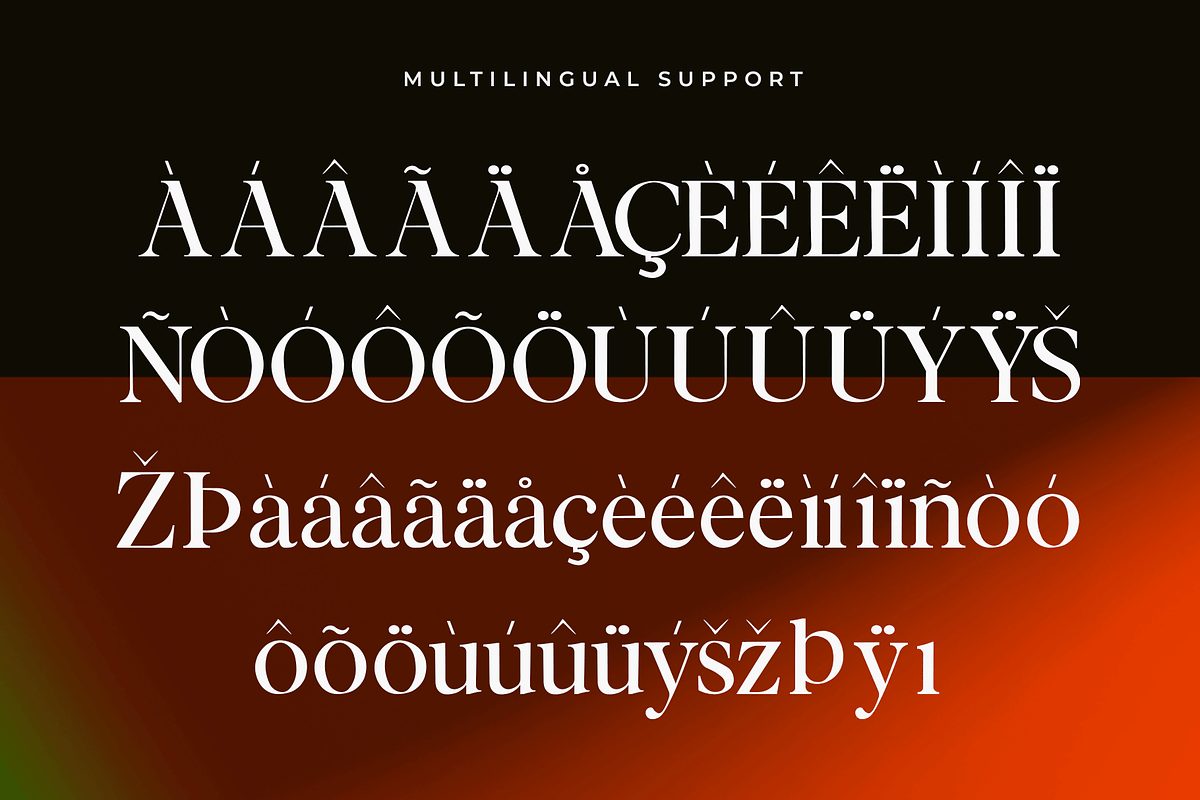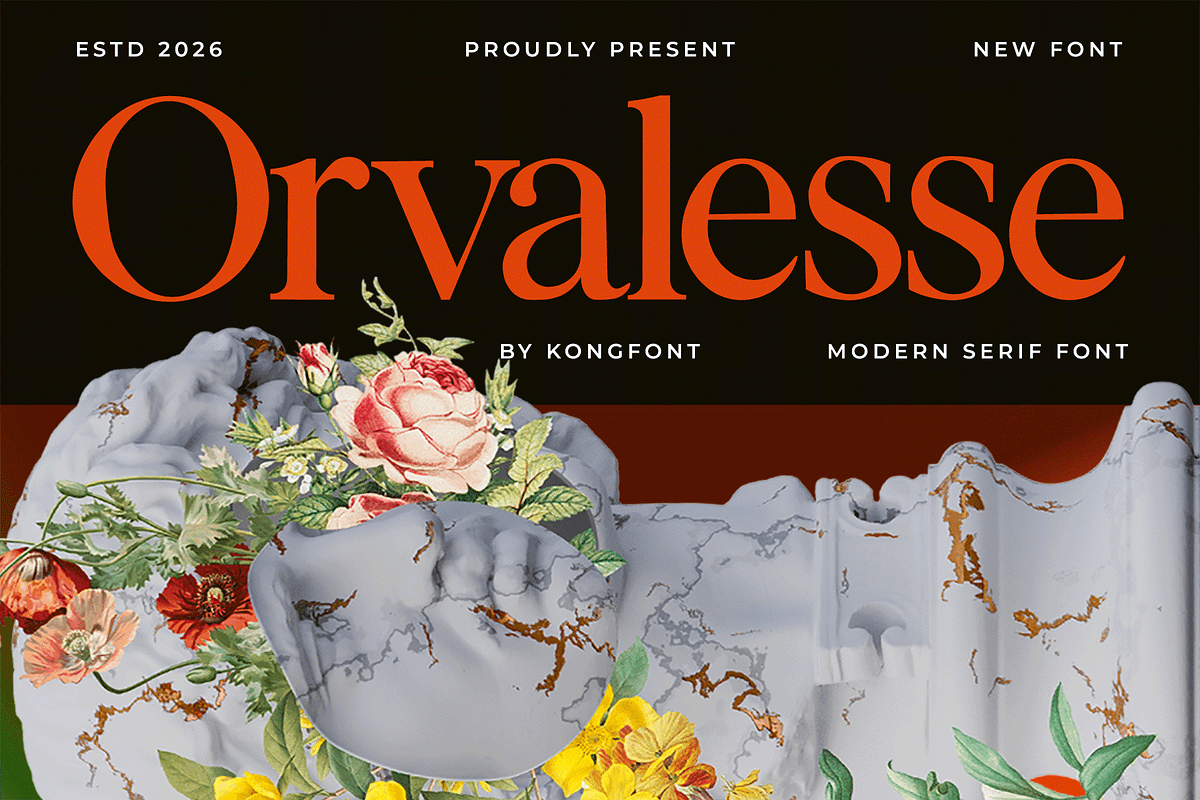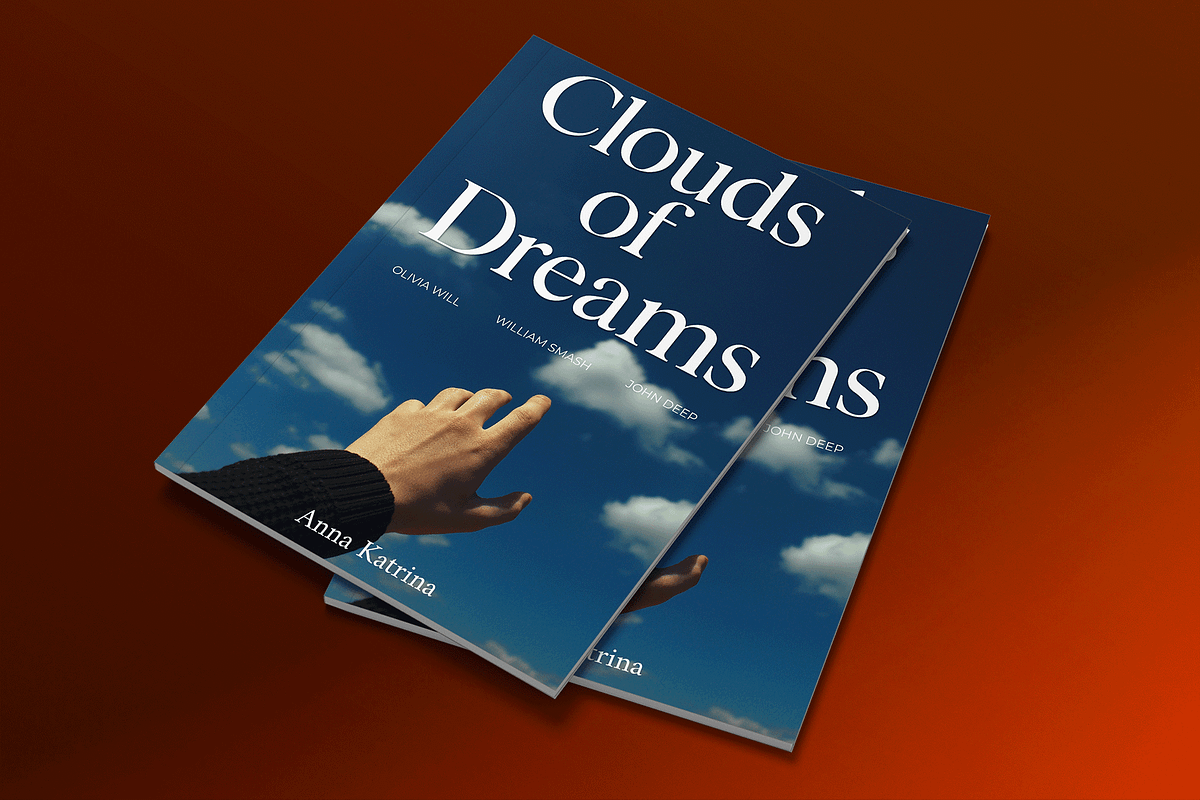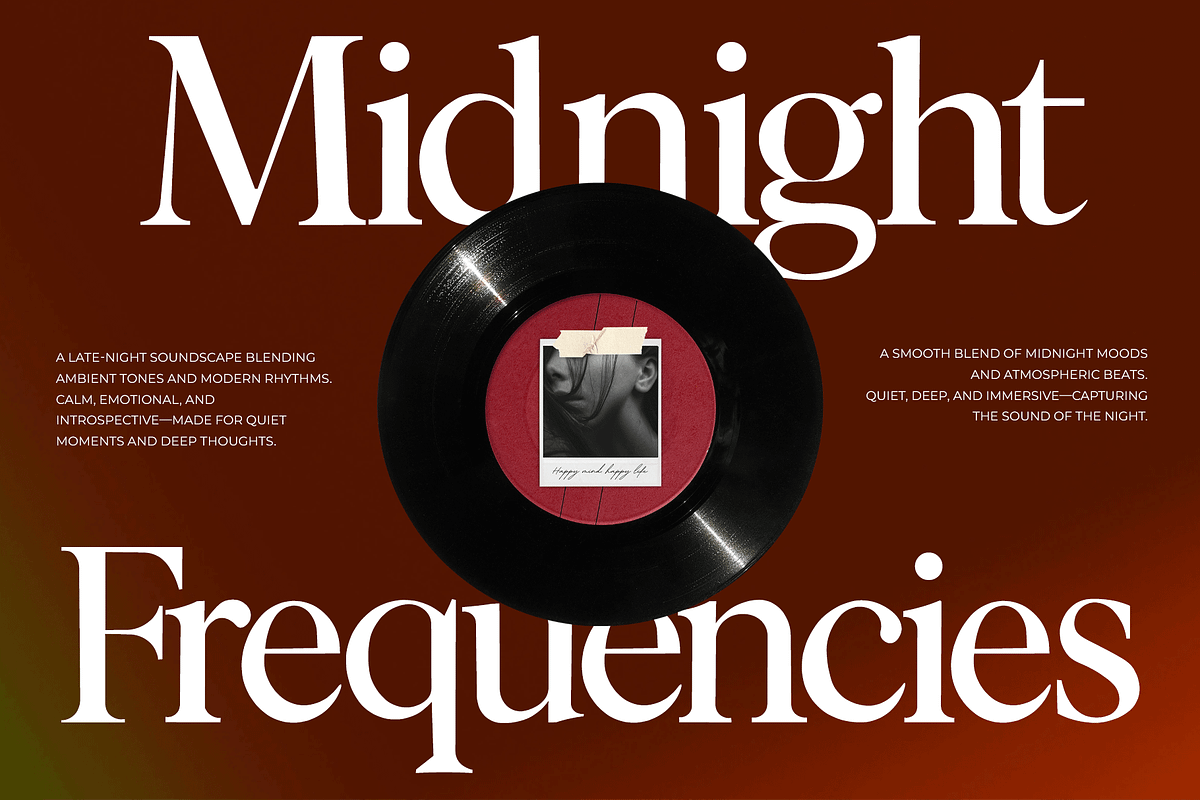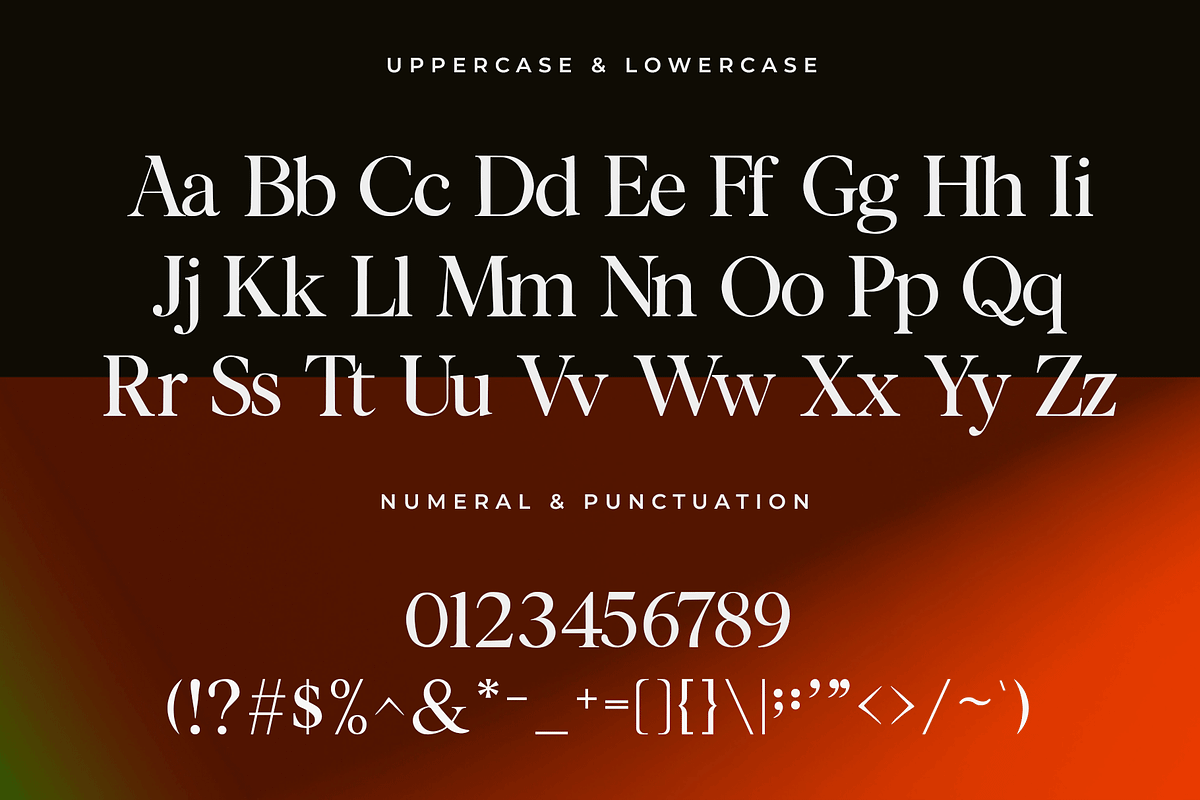
Orvaless – Modern Serif Font
Orvaless is a modern serif font designed to bring sophistication, clarity, and timeless beauty into your creative work. With its elegant serifs, balanced proportions, and smooth contrast, Orvaless delivers a graceful yet contemporary typographic style.
Perfect for luxury branding, editorial layouts, magazines, logos, packaging, invitations, and high-end marketing materials, Orvaless offers a polished aesthetic that feels both classic and modern. Its clean structure ensures excellent readability while maintaining a refined visual presence.